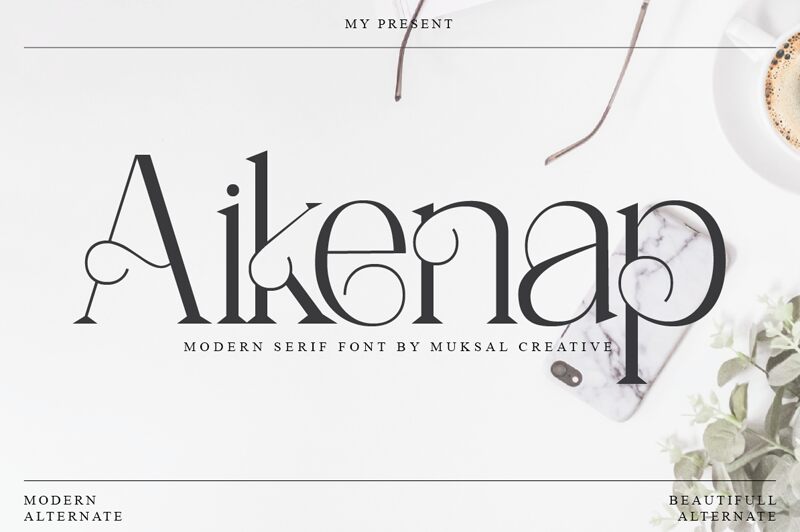
Aikenap font, by Muksal Creative, is a sophisticated serif font presenting elegance and decorative elements. Modern in style with refined characteristics, this free font is geared with a contemporary flair and shows off artistic touches within its letterforms. Aikenap’s creativity stays true to viewers with sharp edges that are smooth to the eye expressions. Use this font to distinguish your business among competitors and maintain consistency across all platforms.
Embodying a clean, professional look, this Aikenap is highly capable of handling large and small text formattings. Download it to create designs for your branding, advertising, social media, websites, covers, labels, packaging, posters, and more. Integrate this serif into your font library for your next magazine, book, apparel, or shipping projects. Personal event invitations like birthdays, engagements, weddings, and graduation are another option.